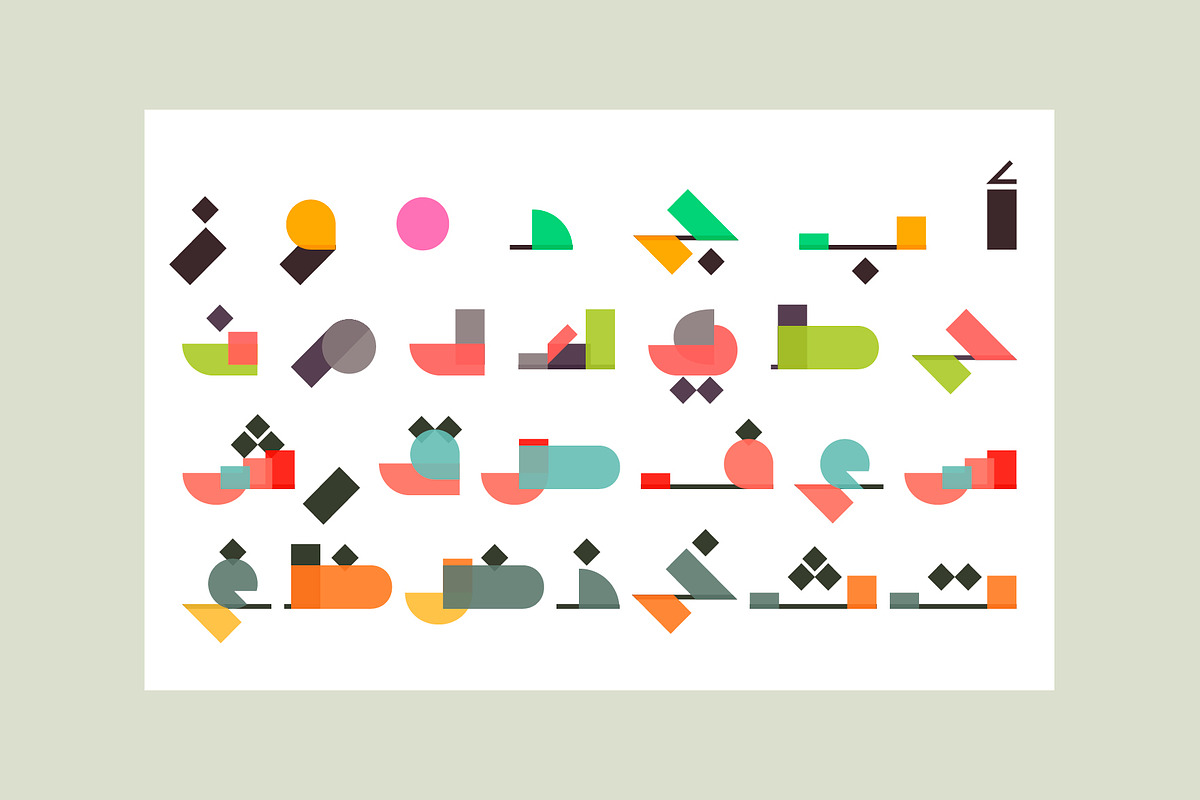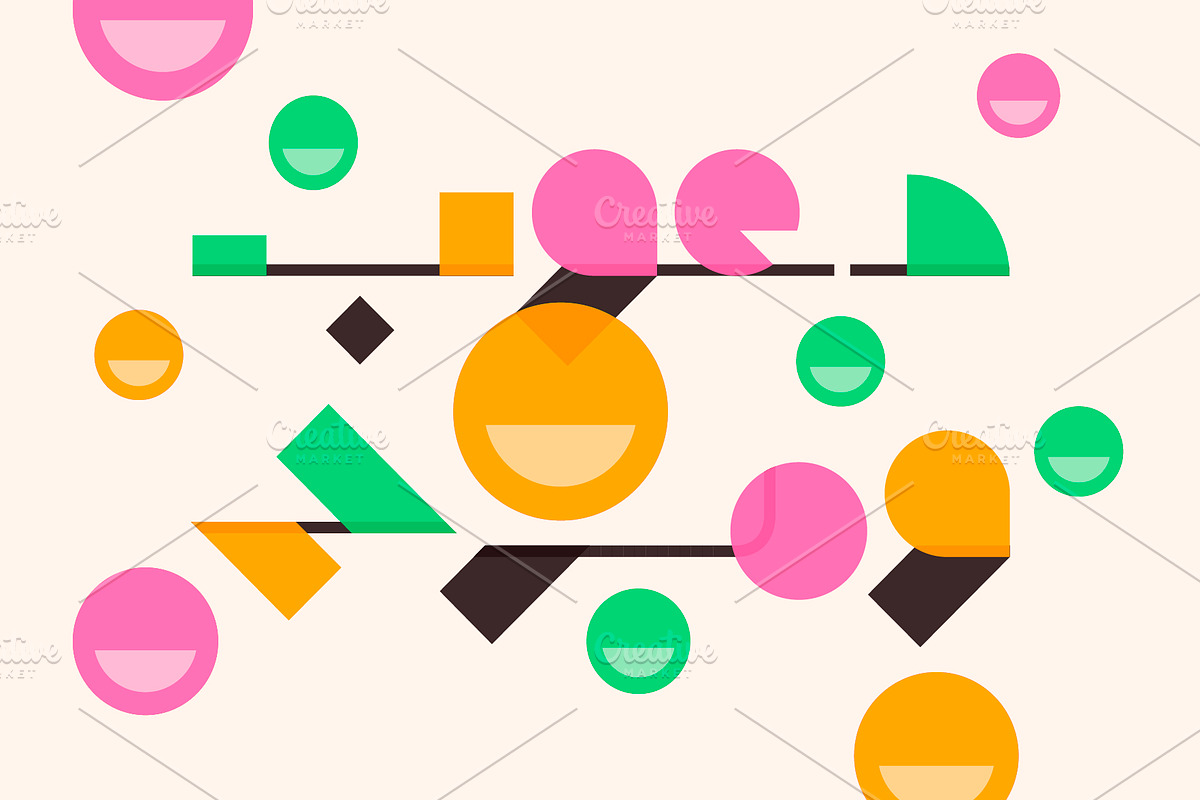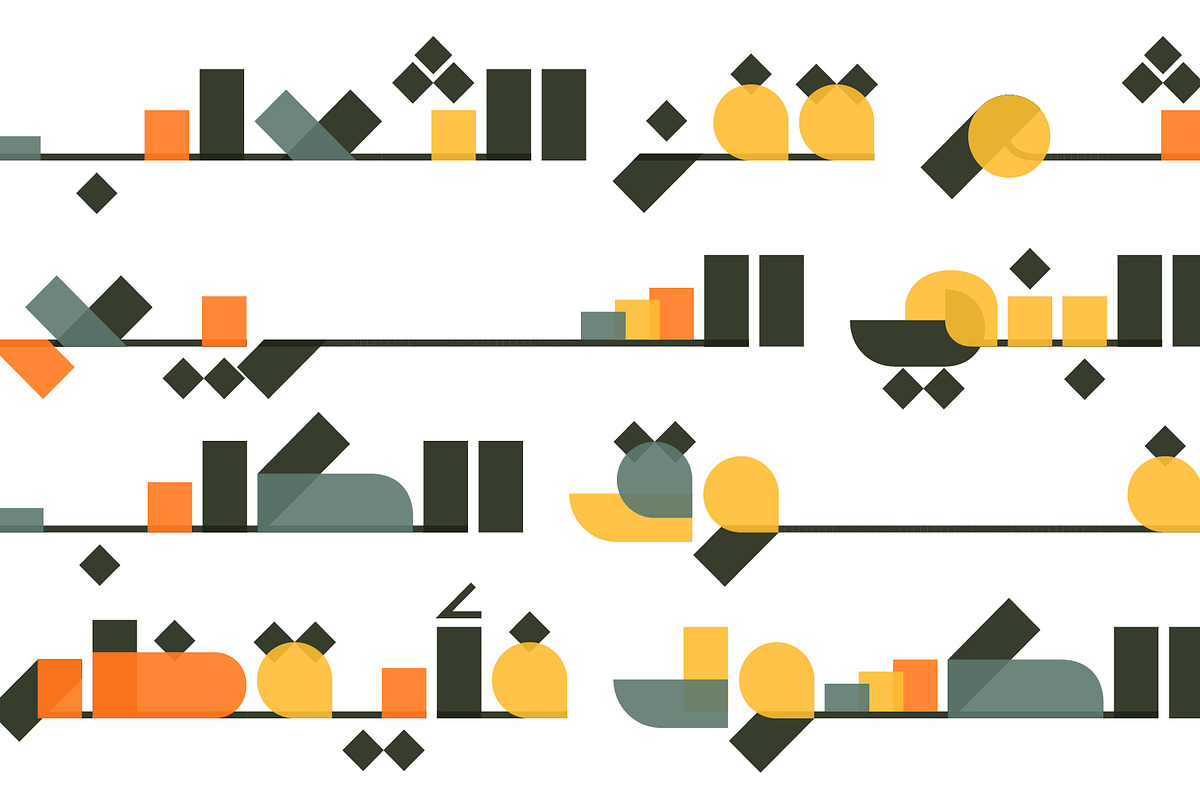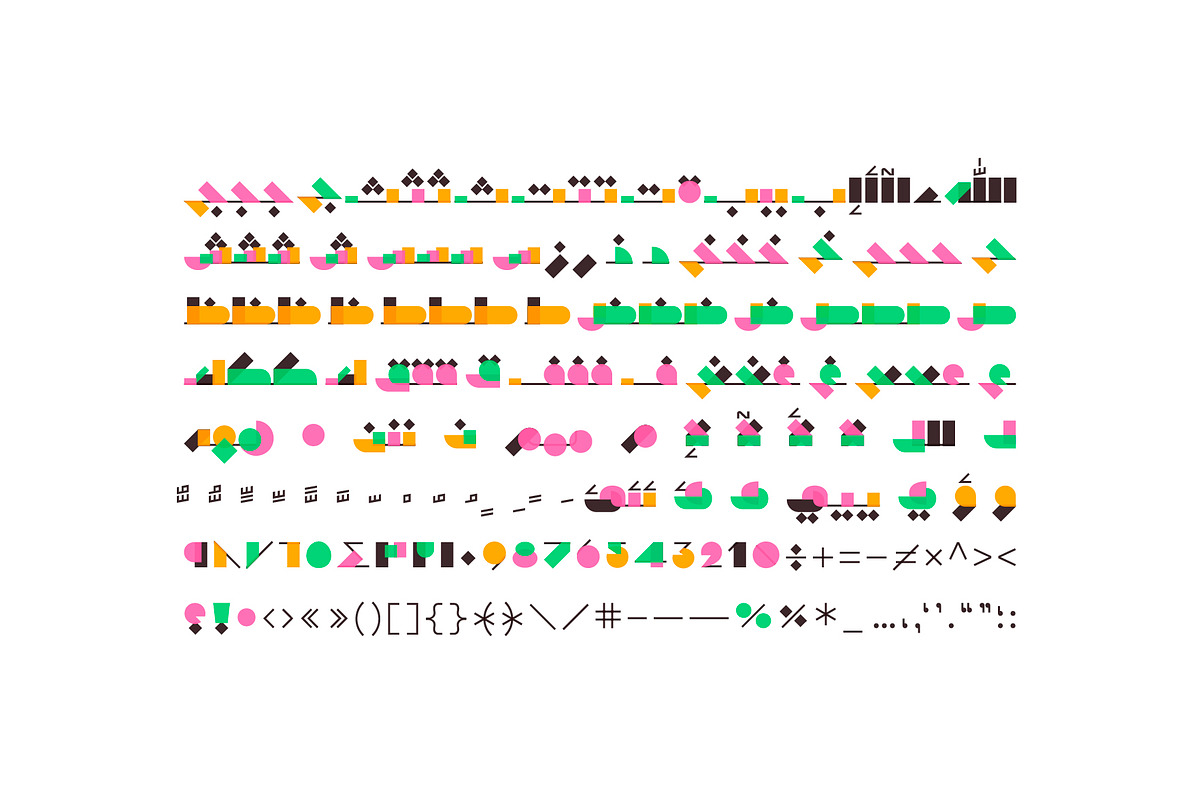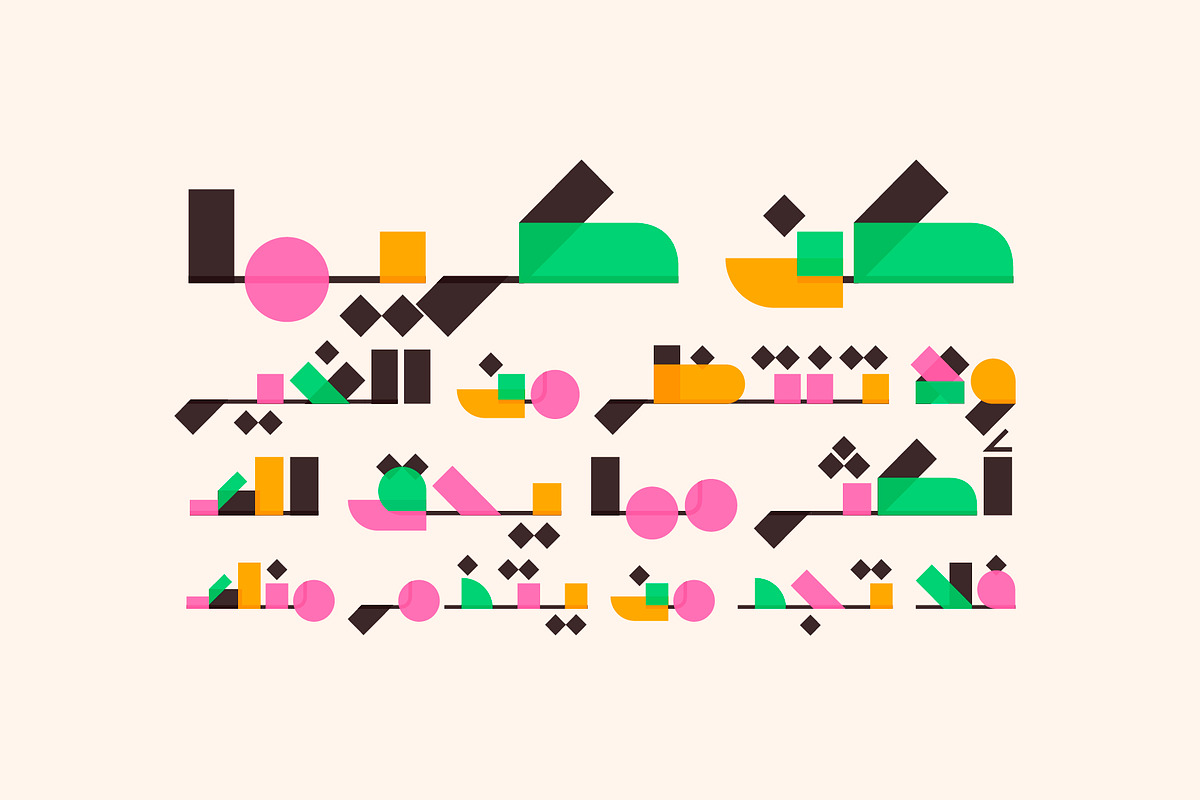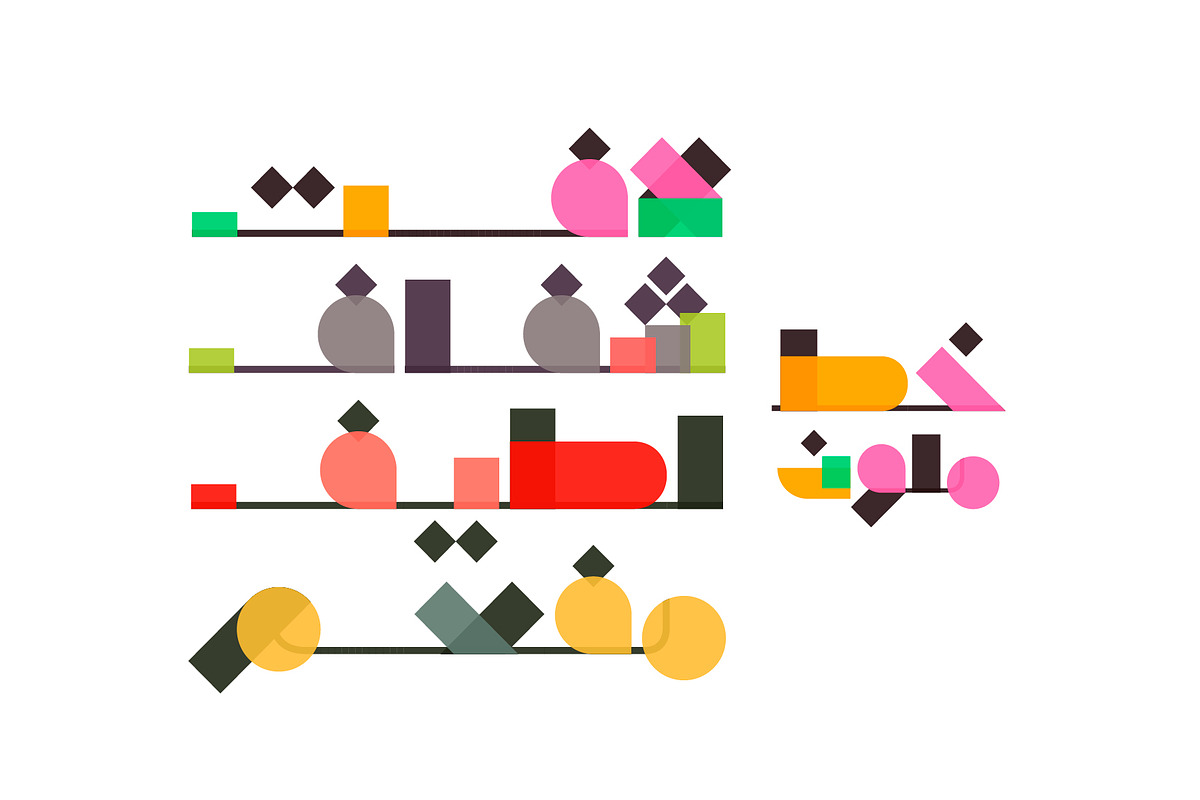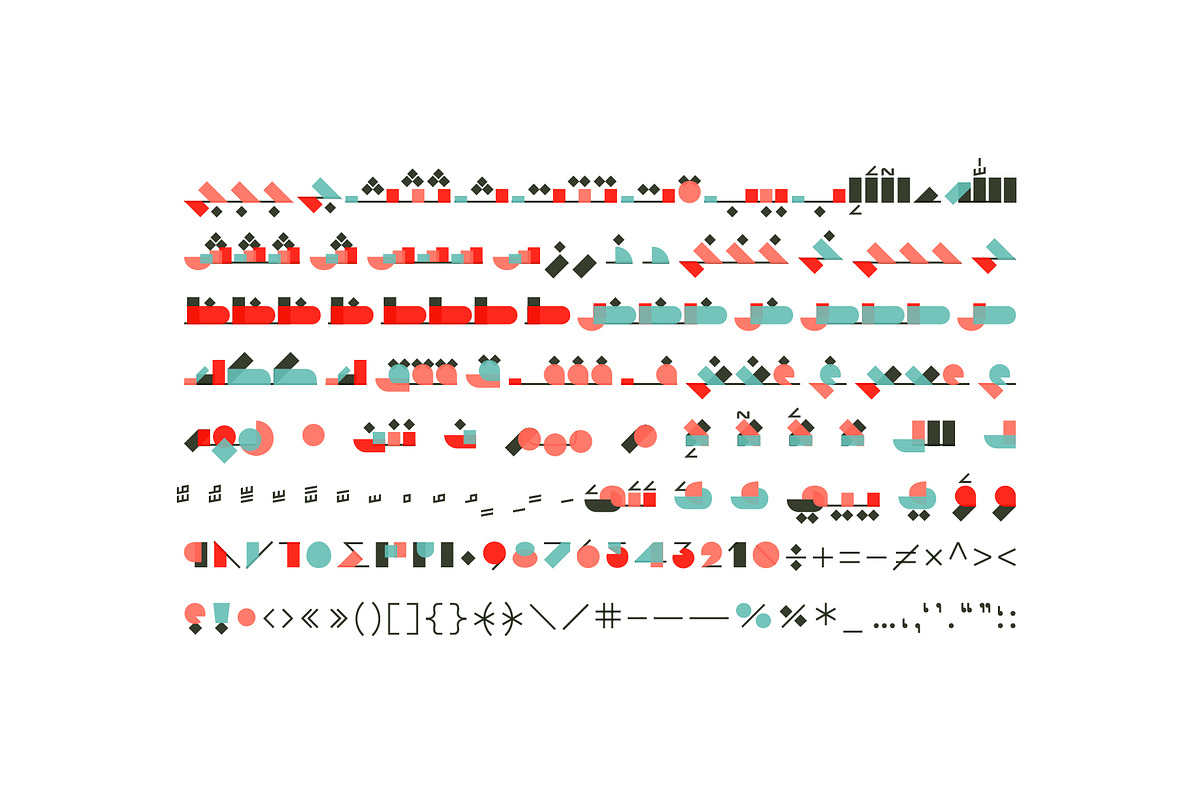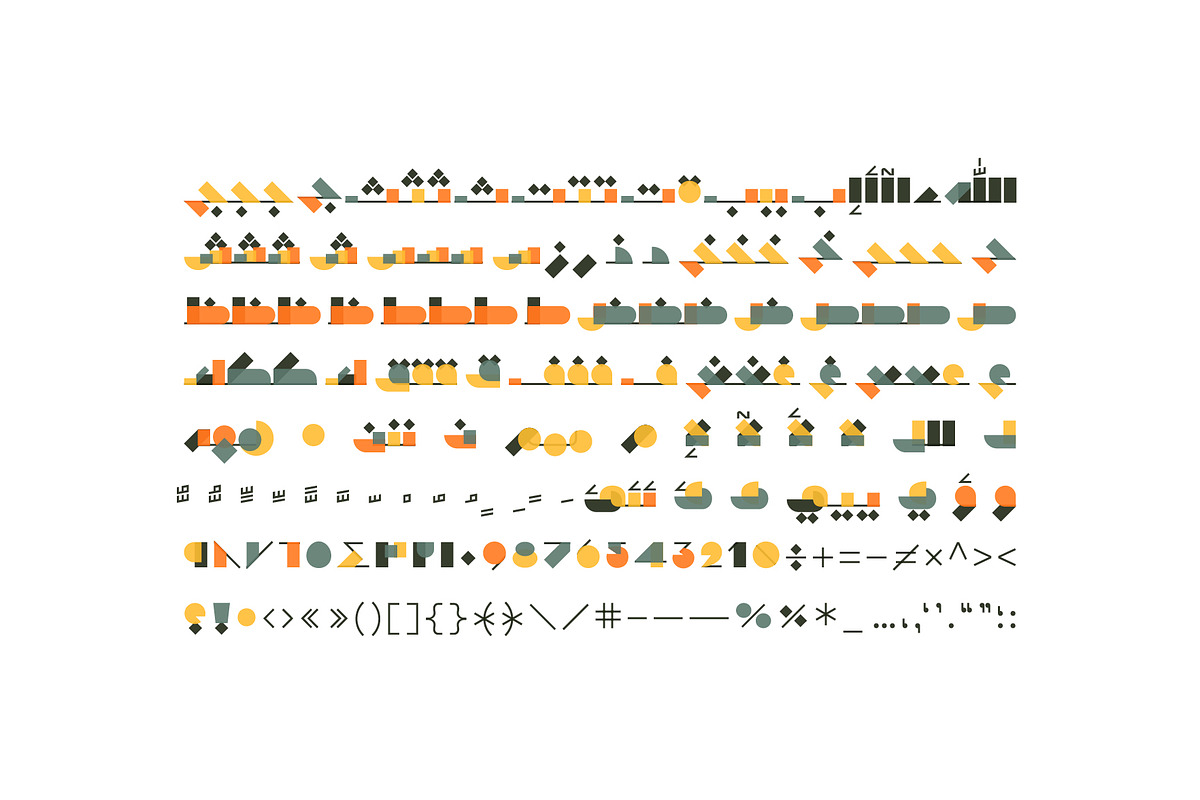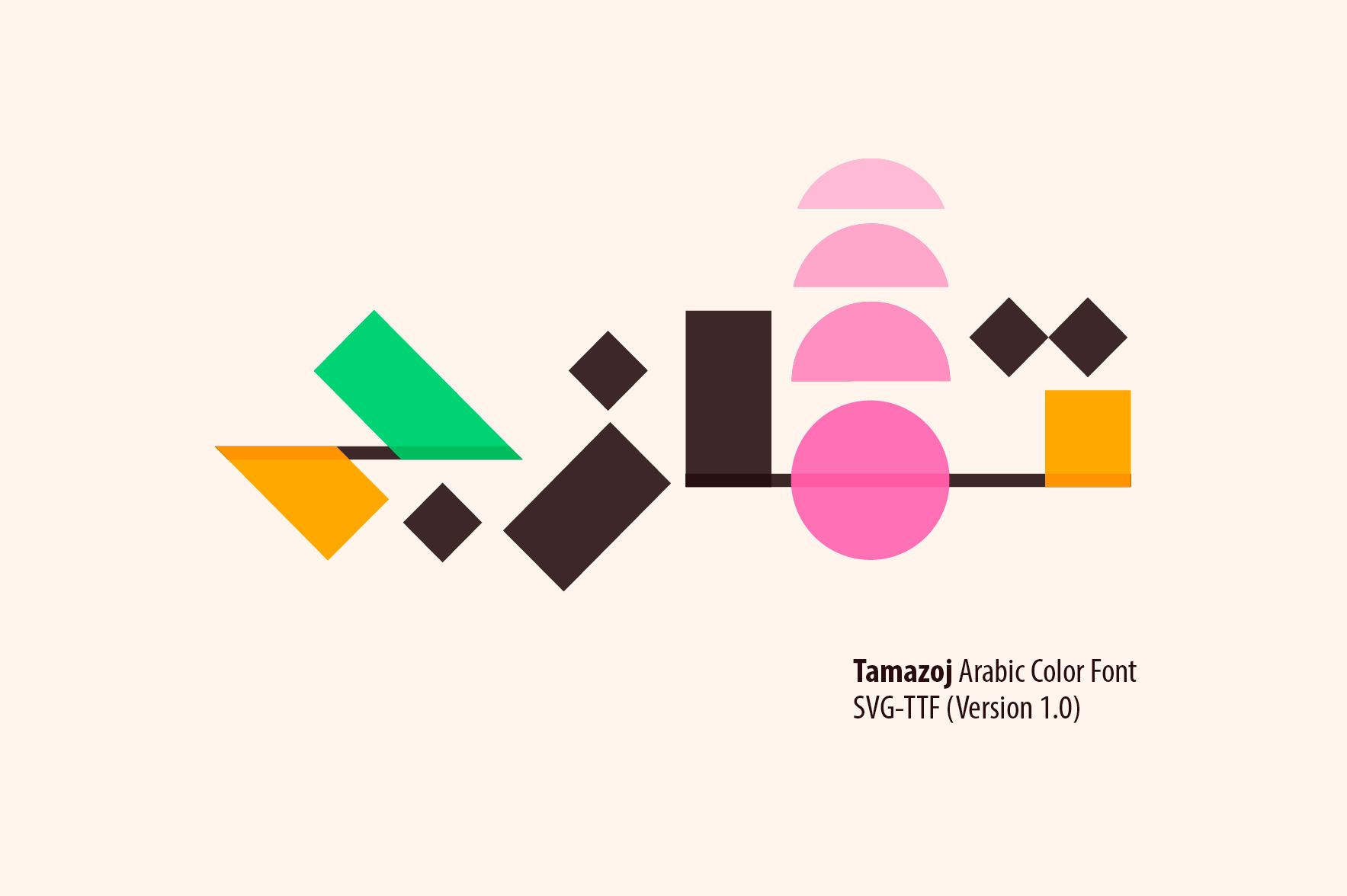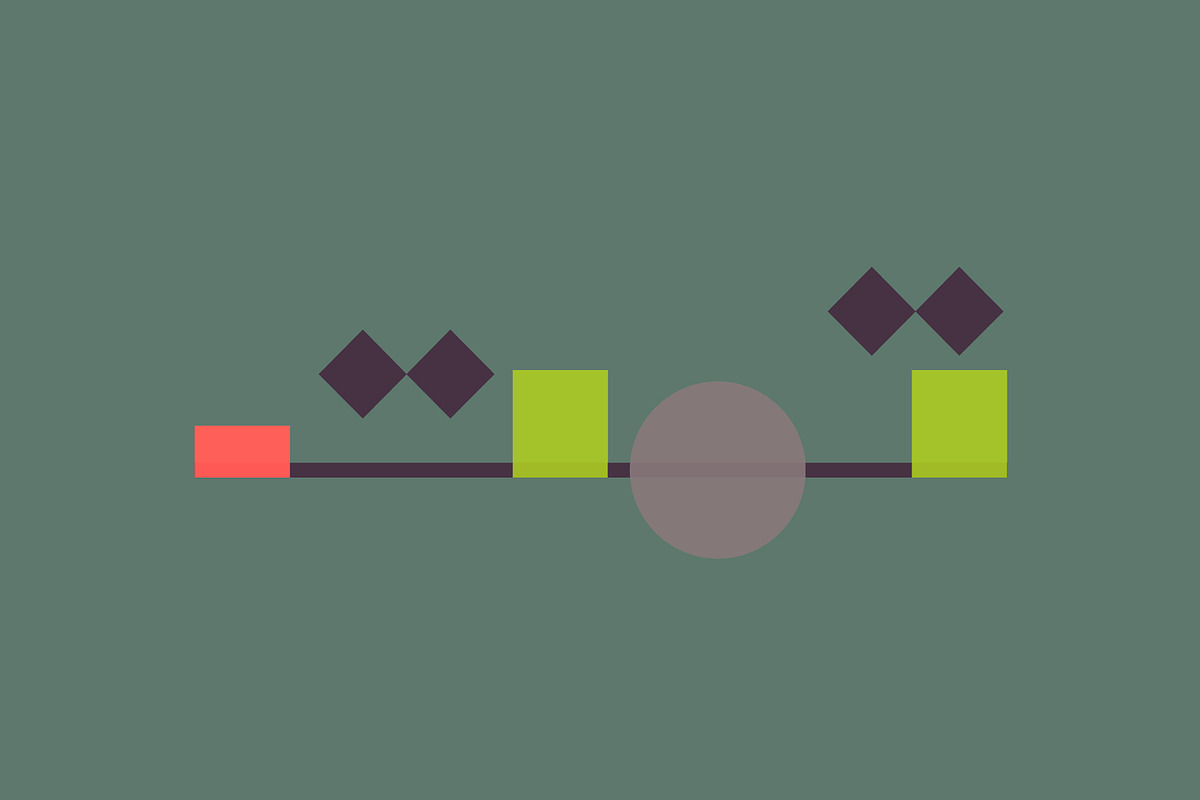
Tamazoj – Arabic Color Font
Tamazoj (Arabic for "Blending") is an Arabic display font built on geometric letterforms with a translucent, layered structure. The typeface includes four color fonts (SVG‑TTF) alongside a standard regular font (OTF). Tamazoj is ideal for contemporary creative projects across web, print, and mobile applications. It is compatible with Windows 10 and above, as well as macOS High Sierra and later.